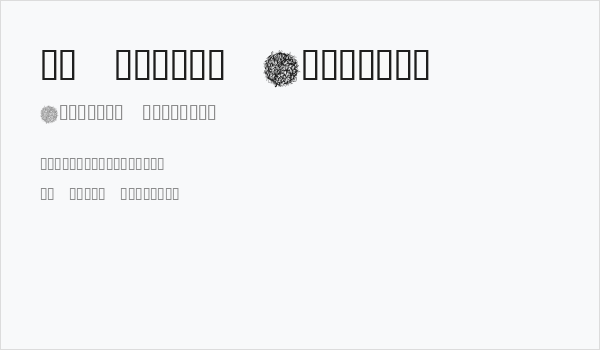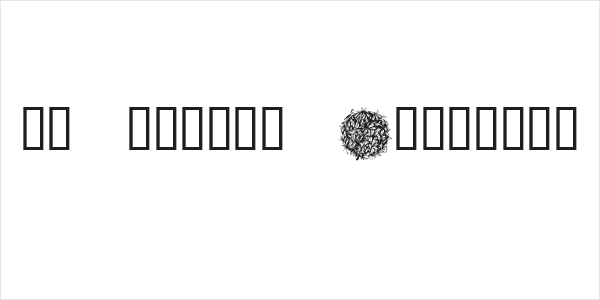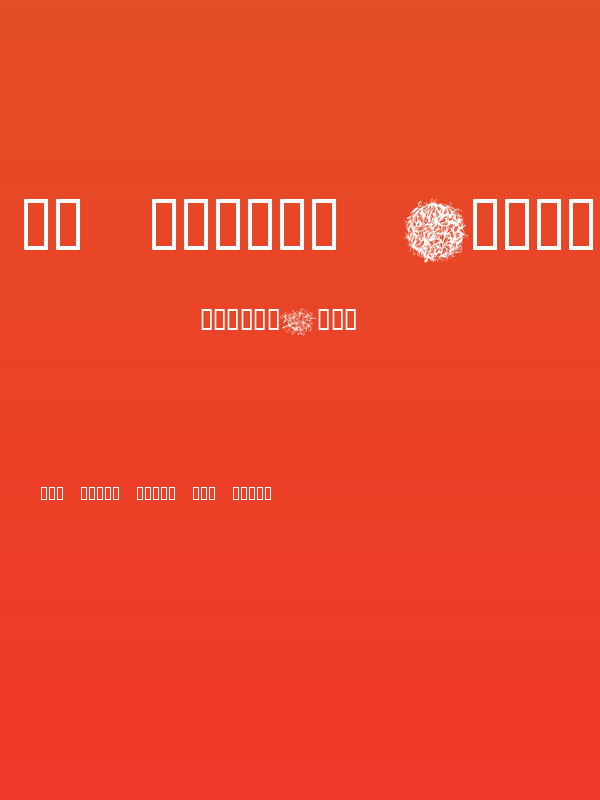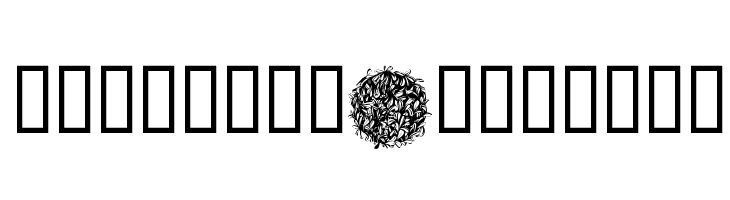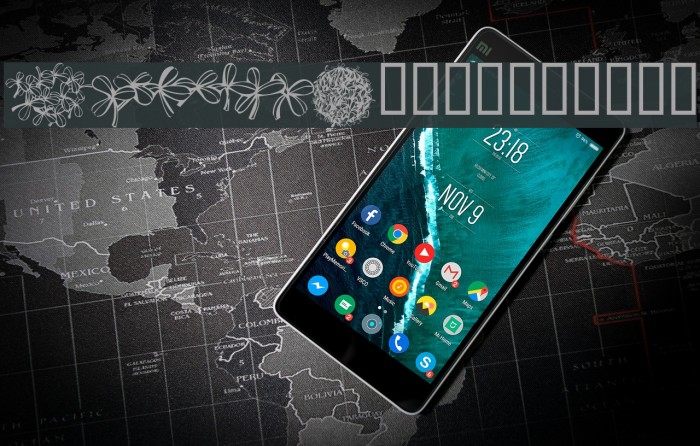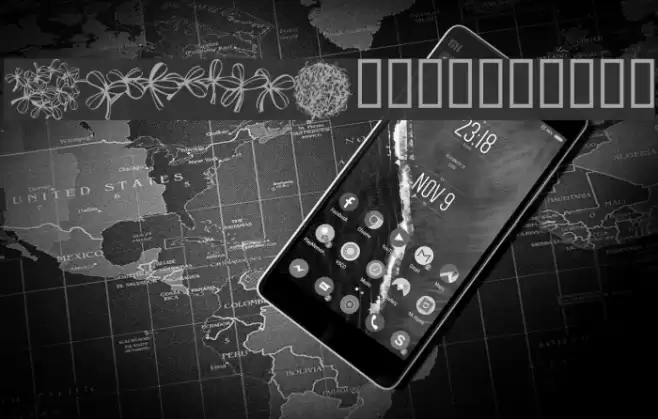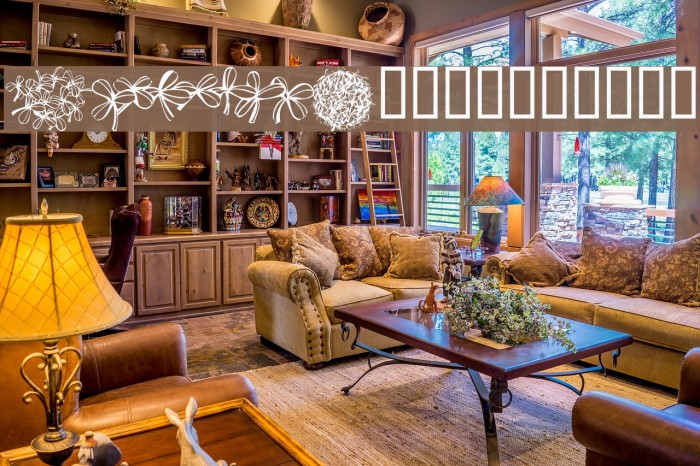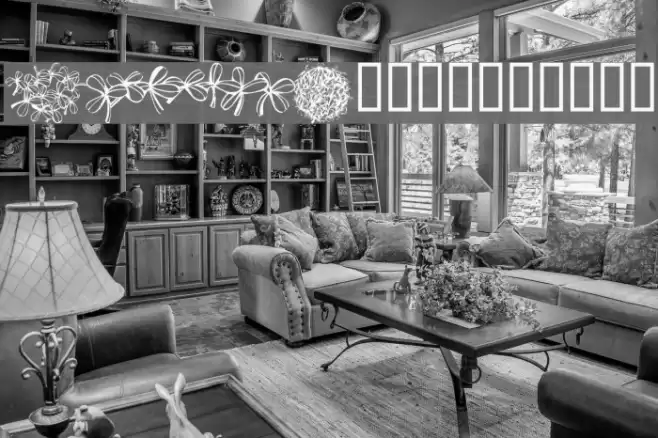
KR Overly Cloverly Font
Decorative font featuring intricate, clover-like patterns within each character, creating a unique and ornate appearance.
| Use Case | Logos, Decorative text |
| Proposed Projects | Greeting cards, invitations, decorative posters. |